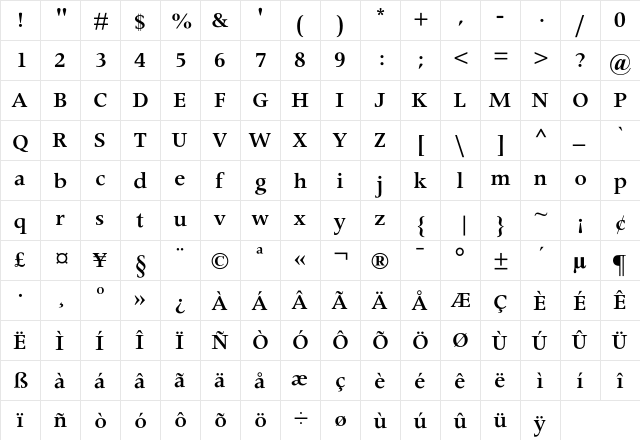
Apollo-SemiBold Regular Font Preview
Apollo-SemiBold Regular
Apollo-SemiBold Regular Font Details
Design Context for Apollo-SemiBold Typeface
Apollo-SemiBold offers clean, dependable letterforms without strong stylistic allegiance, making it a practical choice for designers who need flexibility. The heavy weight commands attention and anchors typographic hierarchies.
Pro Tip: Use Apollo-SemiBold in both headline and body roles to test its range before committing to a single application.